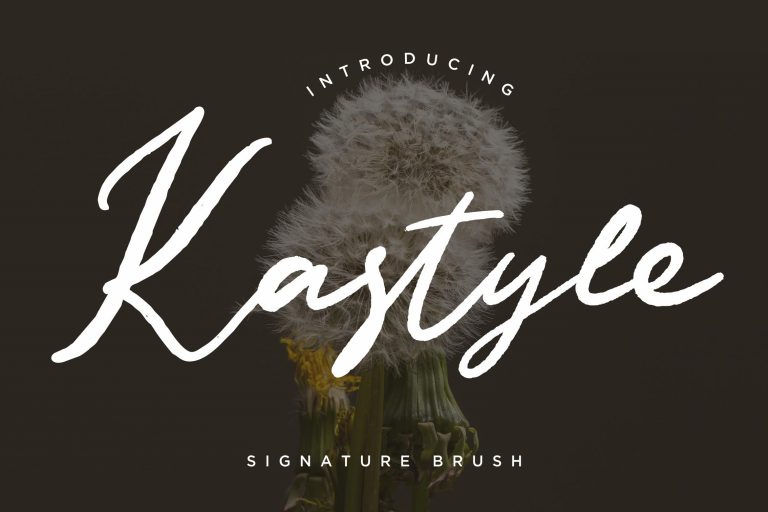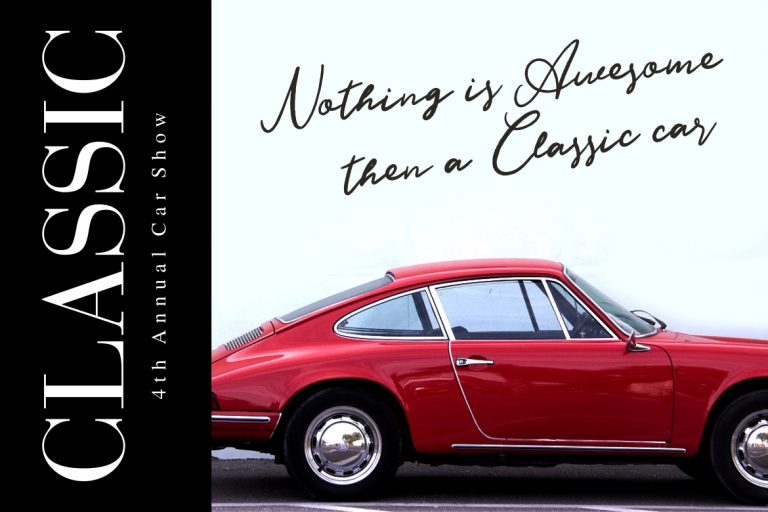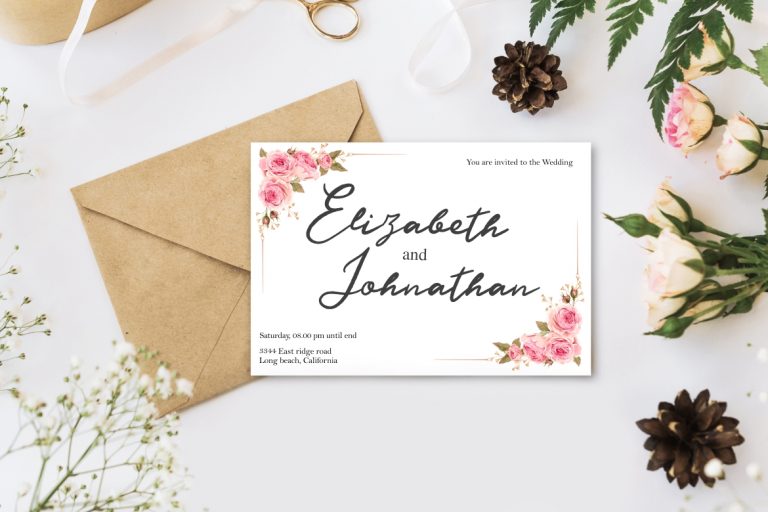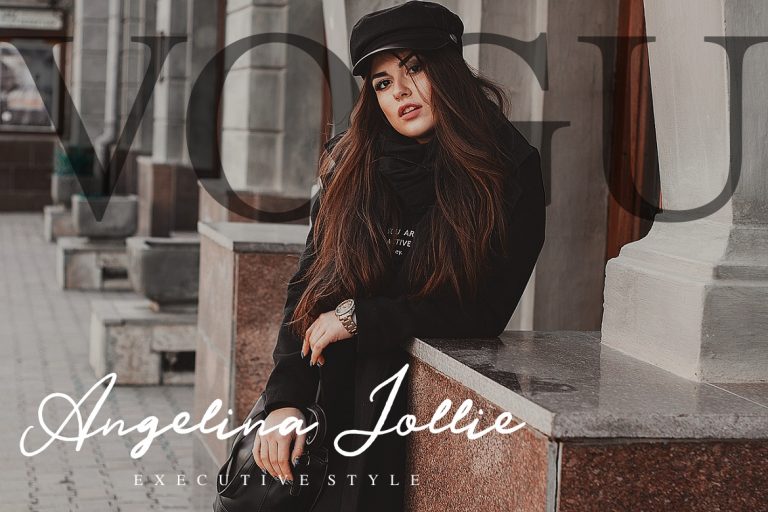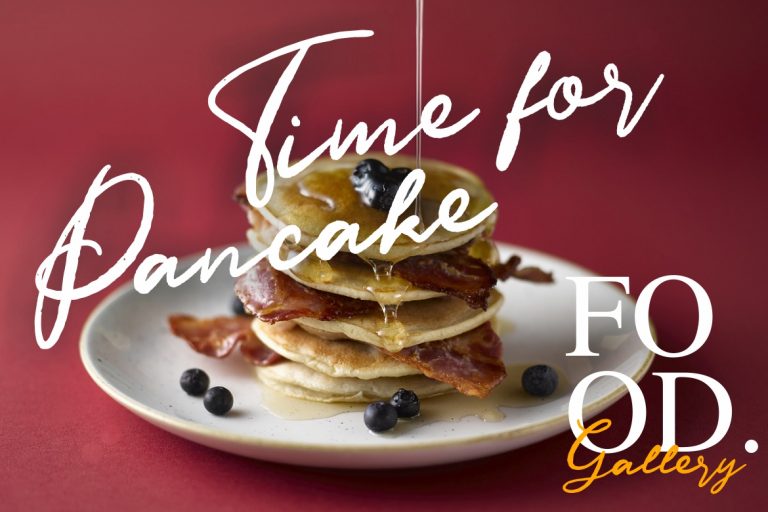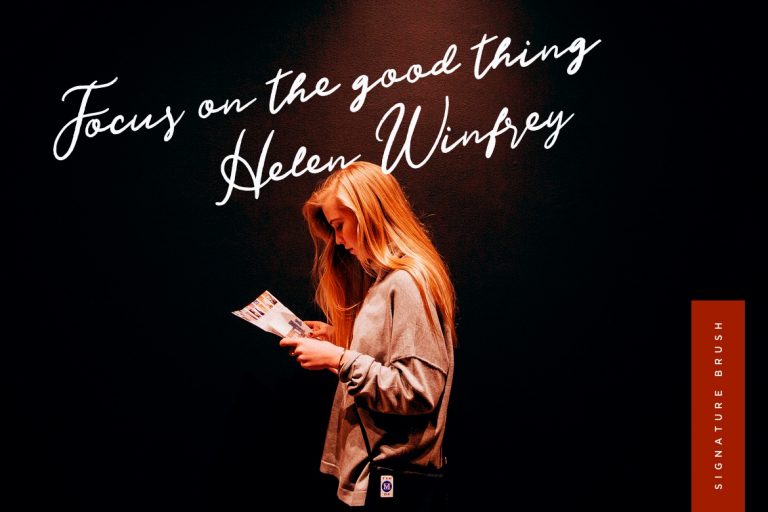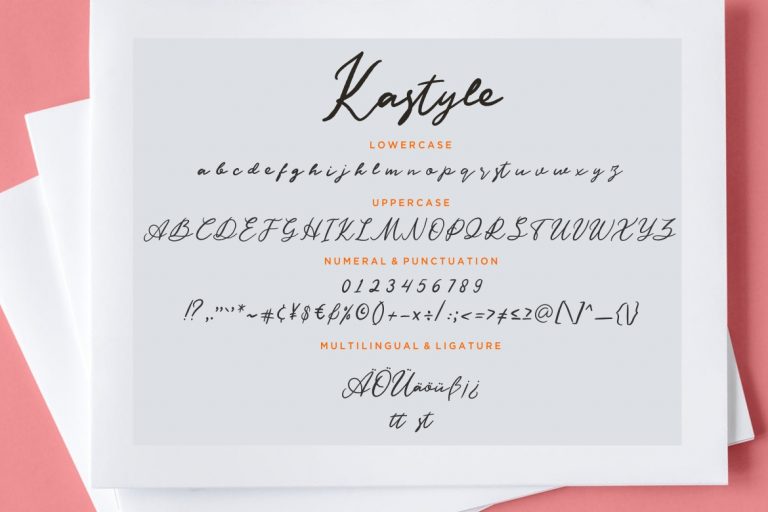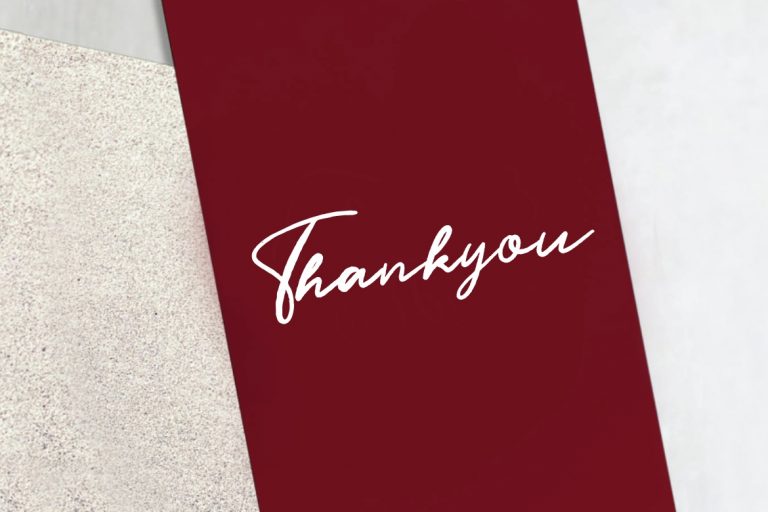
Kastyle Signature Brush
Kastyle Signature is signature script collection with brush touch make this font so awesome for your project.
Kastyle Signature is perfect for branding projects, logo, wedding designs, social media posts, advertisements, product packaging, product designs, label, photography, watermark, invitation, stationery and any projects that need handwriting taste.
- Fonts include multilingual support for; ä ö ü Ä Ö Ü ß ¿ ¡